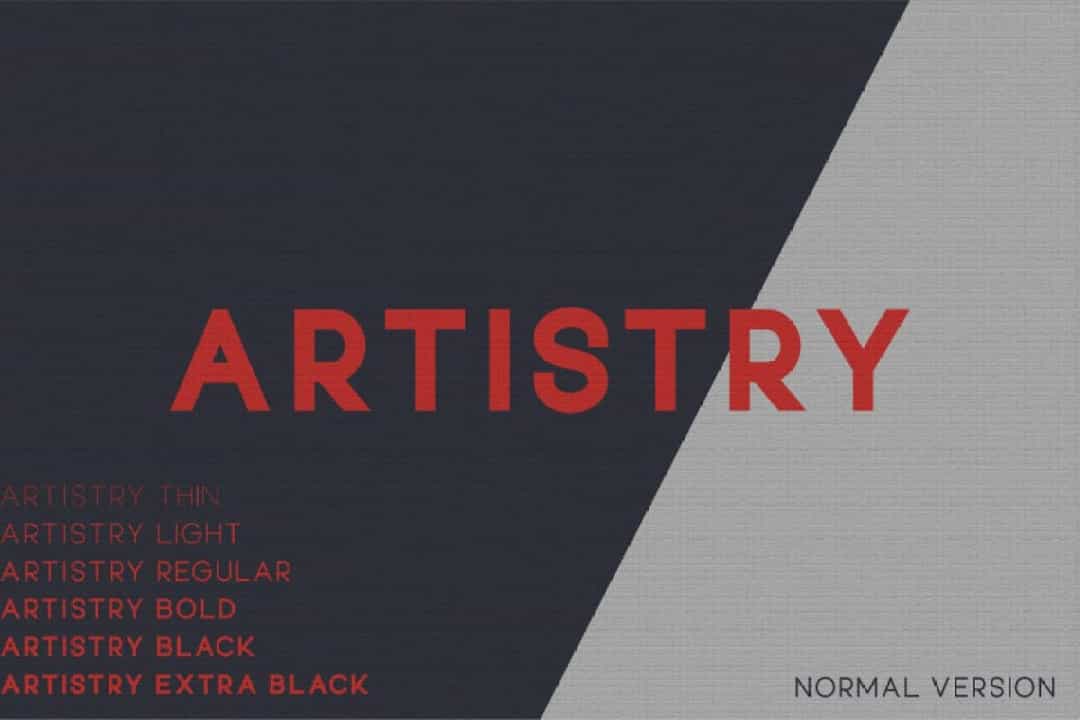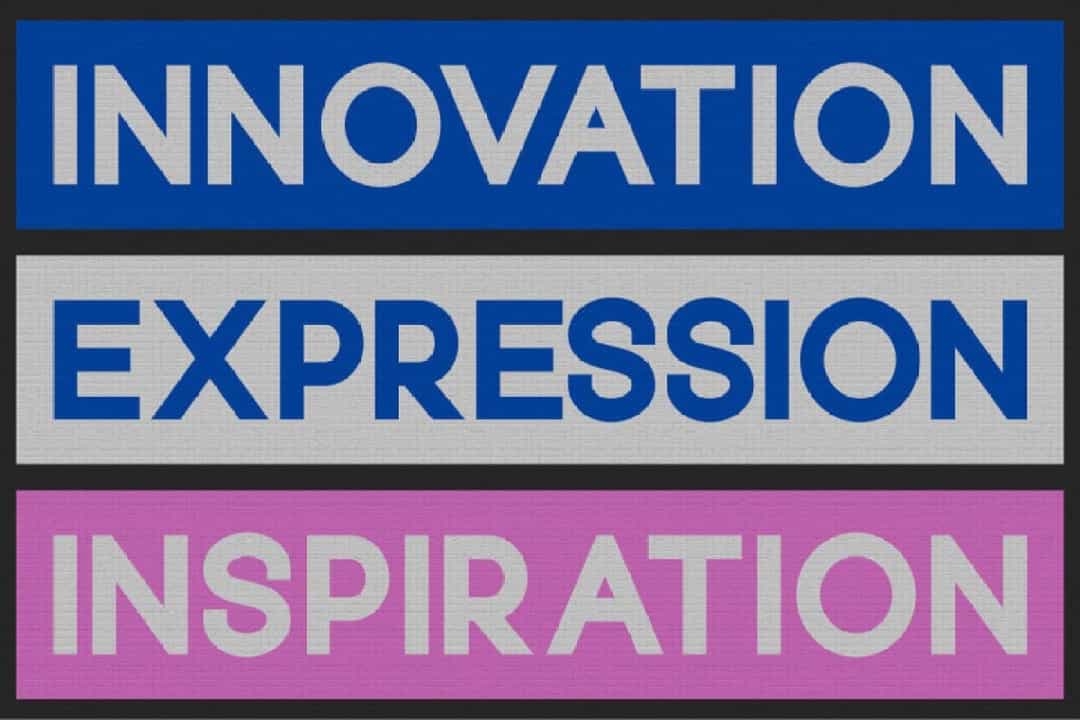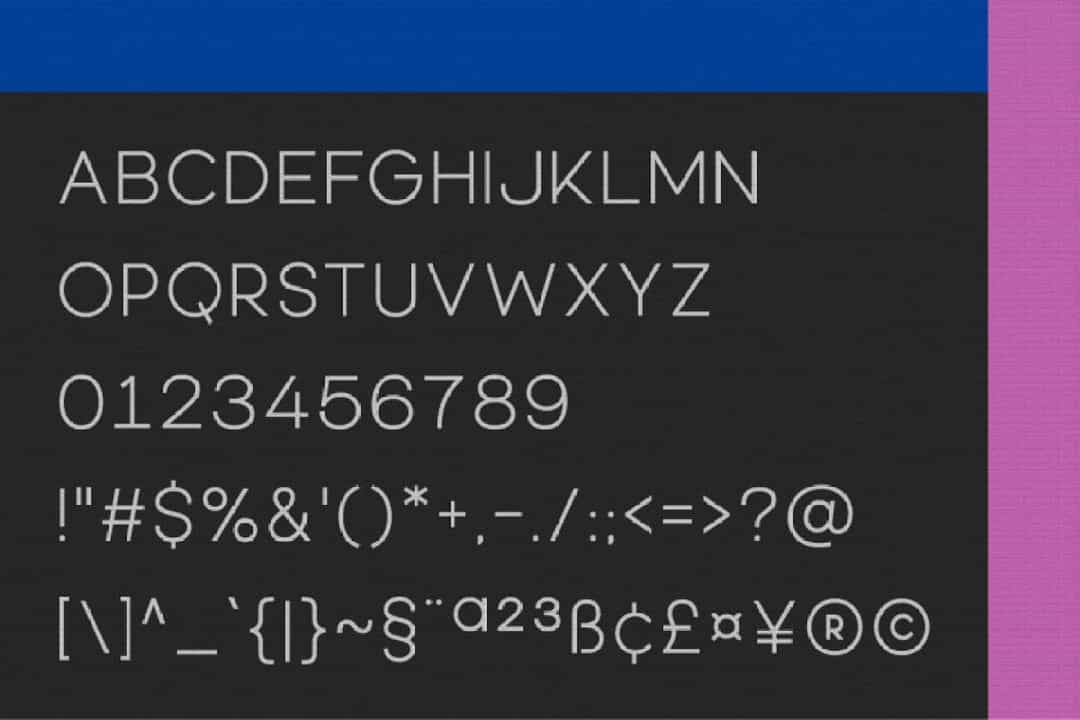
Our Artistry font family is unparalleled: an exquisite blend of simplicity and elegance that perfectly embodies modernity with luxury. Comprised of six weights for each font type in this sans serif font family, The Artistry effortlessly improves any project from logo designs for magazines to film posters by striking a delicate balance between elegant simplicity.